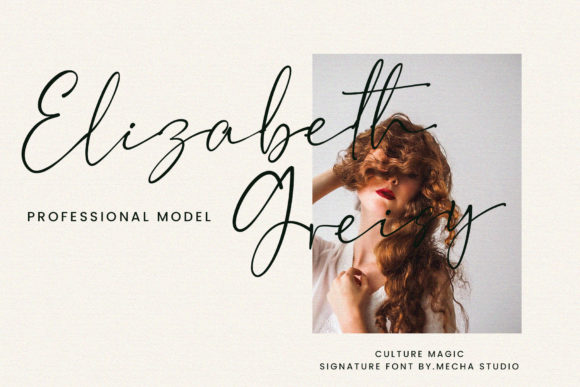
About Culture Magic Font
Culture Magic is a charming and refined handwritten font that brings an air of elegance and sophistication to any design. Its clean, thin, and smooth lines give it a modern and contemporary touch, making it a versatile choice for a wide range of projects. Here are some creative ideas for using the Culture Magic font to enhance your designs:
1. Branding: Use Culture Magic font to create a unique and stylish logo for your brand. Its delicate and refined appearance will leave a lasting impression on your audience.
2. Product Packaging: Apply Culture Magic font to design product labels and packaging, adding a touch of elegance and sophistication to your products.
3. Invitations: Craft exquisite and stylish invitations using Culture Magic font for weddings, events, parties, or any special occasion.
4. Quotes: Create visually appealing quote graphics with Culture Magic font, perfect for social media posts, inspirational posters, and more.
5. T-Shirts and Apparel: Design trendy and fashionable t-shirts and apparel with Culture Magic font, bringing a touch of elegance to your clothing line.
6. Labels and Tags: Use Culture Magic font for labels, tags, and stickers on various products, adding a personalized and stylish touch.
7. Posters and Flyers: Design eye-catching posters and flyers using Culture Magic font, making your messages stand out with a touch of sophistication.
8. Greeting Cards: Create beautiful and heartfelt greeting cards with Culture Magic font, perfect for expressing warm wishes and sentiments.
9. Quotes in Books or Magazines: Incorporate Culture Magic font for quotes and headings in books or magazines, adding a touch of elegance to your layout.
10. Web Graphics: Use Culture Magic font for web graphics, social media banners, and blog post headers to make your online presence more appealing.
11. Lettering Art: Explore hand-lettering projects with Culture Magic font, creating custom artwork for home decor, art prints, and more.
12. Brand Collateral: Apply Culture Magic font to various brand collateral, including business cards, letterheads, and brochures, to maintain a consistent and stylish brand identity.
The clean and smooth vibe of Culture Magic font makes it suitable for both formal and informal contexts, allowing it to adapt effortlessly to various design projects. Its delicate appearance and stylish touch make it an excellent choice for those seeking a refined and elegant look. Whether it’s used for branding, invitations, or product packaging, Culture Magic font will add a touch of magic to your designs and elevate them to new heights of style and sophistication.